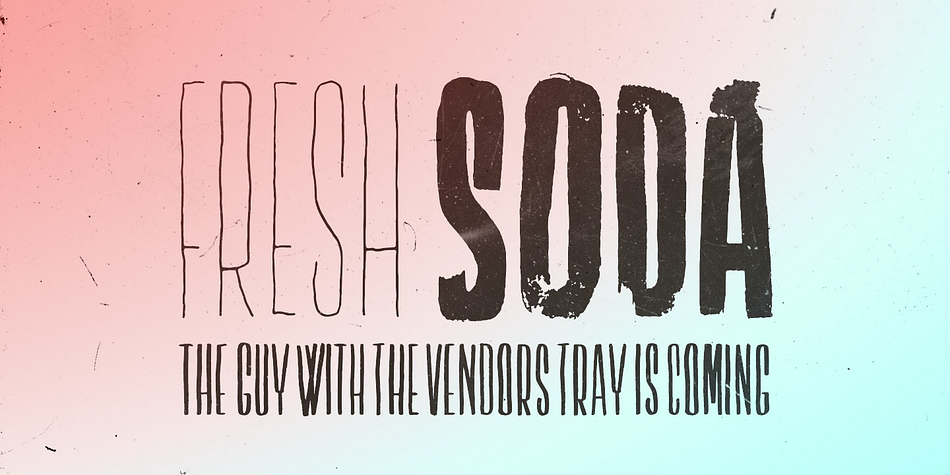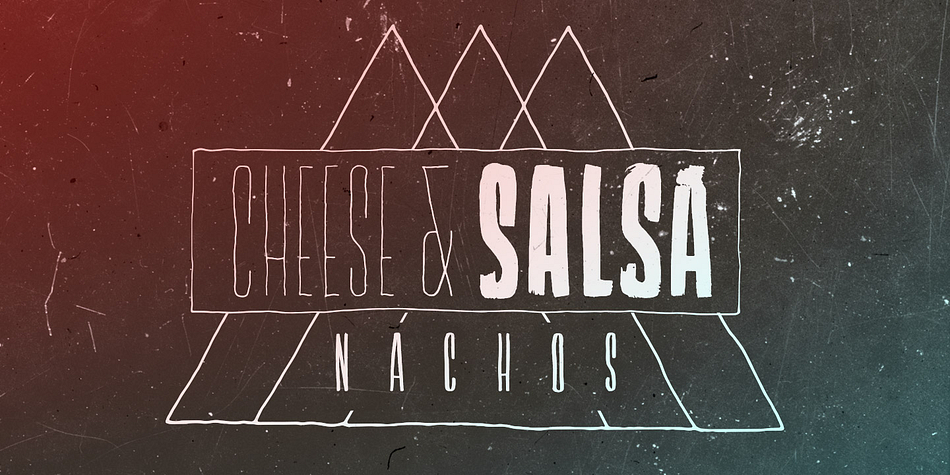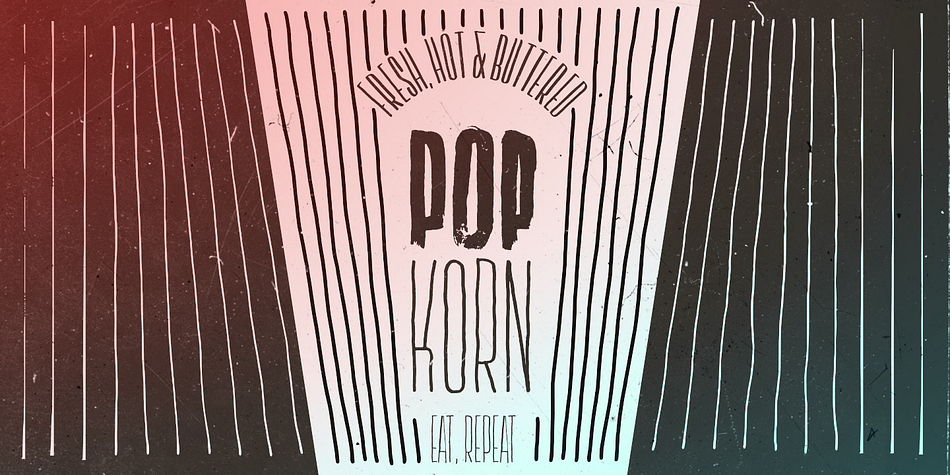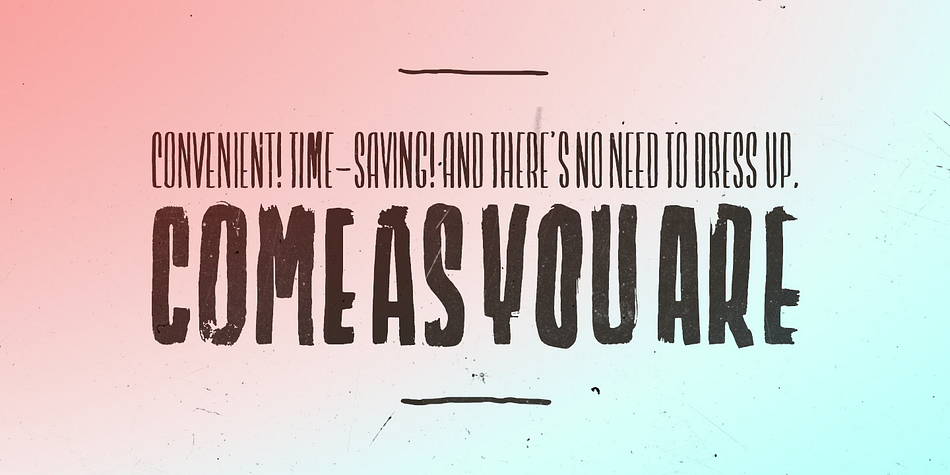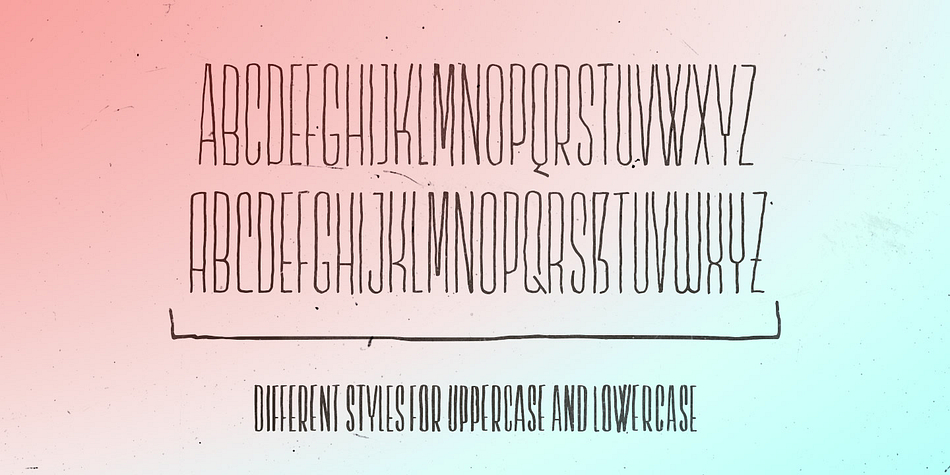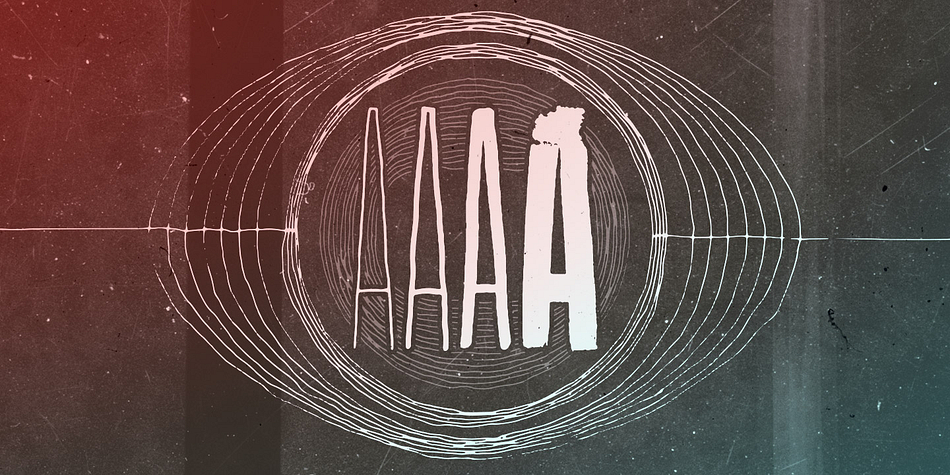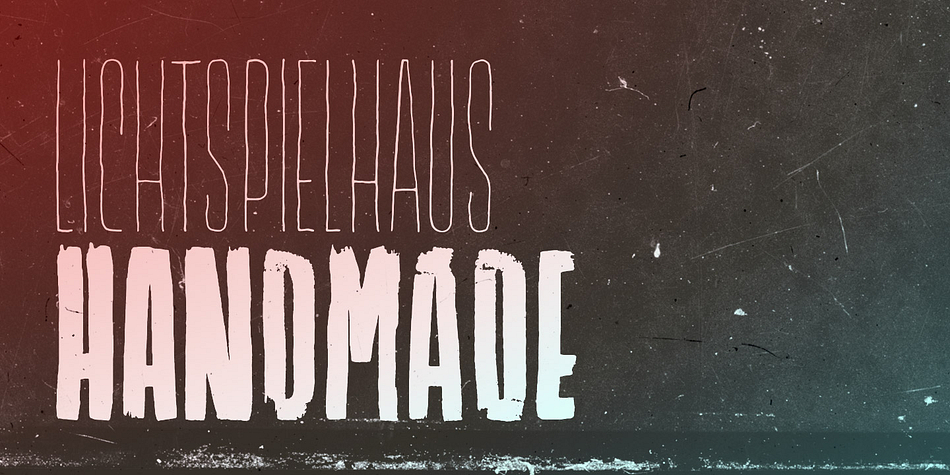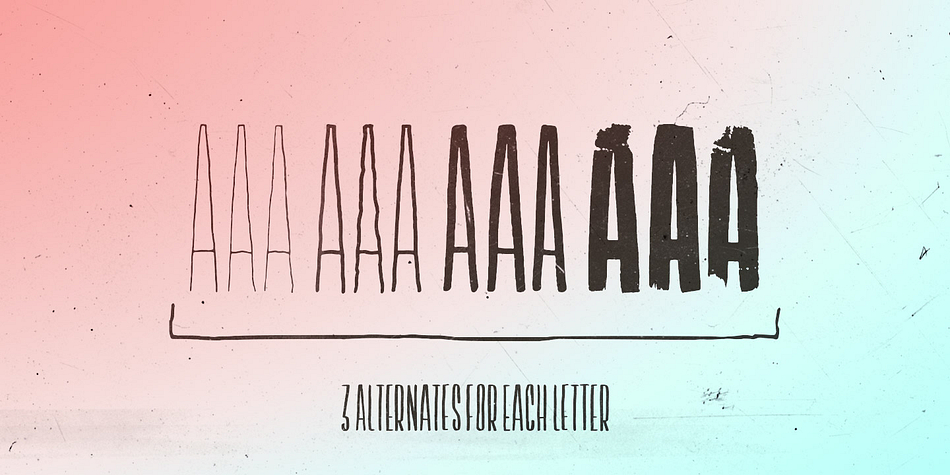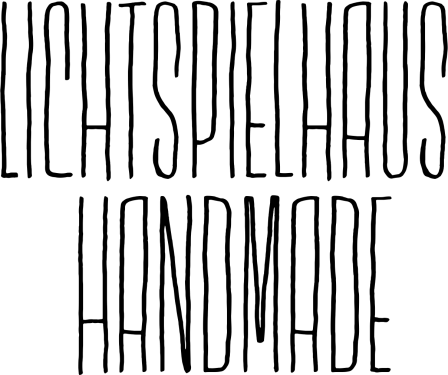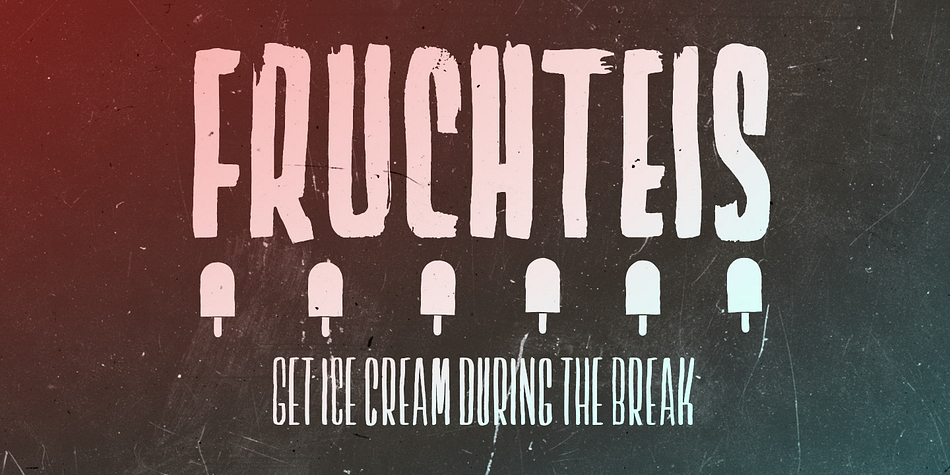
Designed by Stefan Huebsch, Lichtspielhaus Handmade is a grunge and retro font family. This typeface has four styles and was published by Typocalypse.
Lichtspielhaus Handmade is an ultra condensed handwritten typeface based on Lichtspielhaus. Influenced by the hand-painted signs on cinema facades of the early cinema days, Lichtspielhaus Handmade comes with 4 weights.
Lichtspielhaus Handmade is the second part of a Type Noir Quadrilogy.